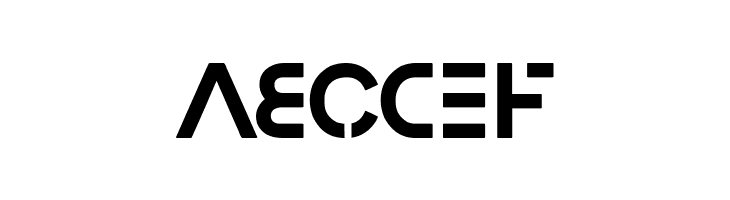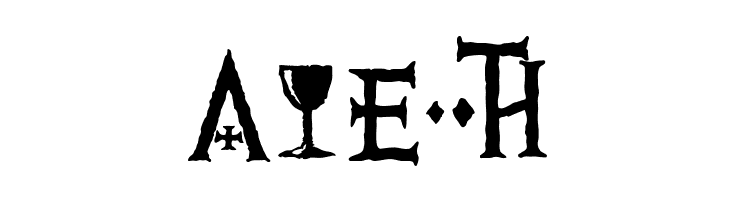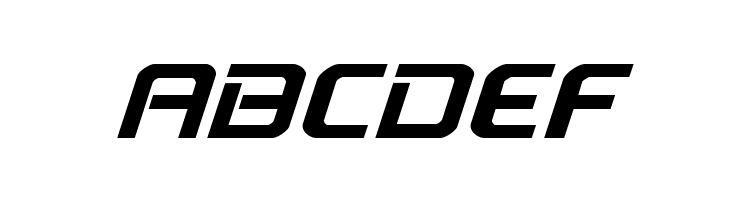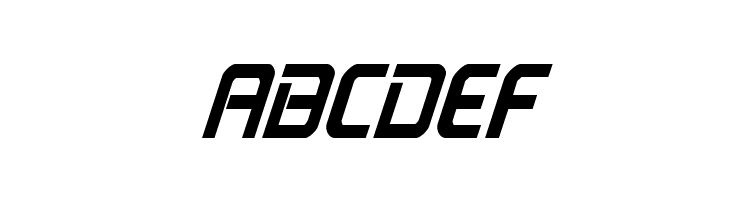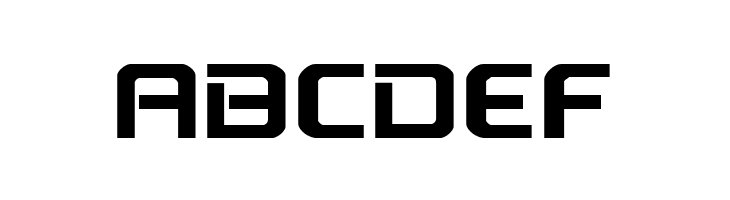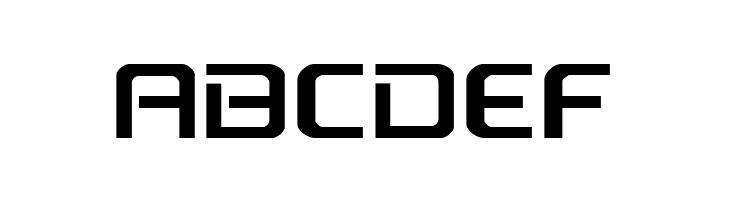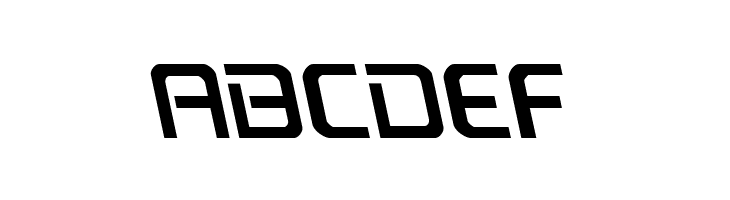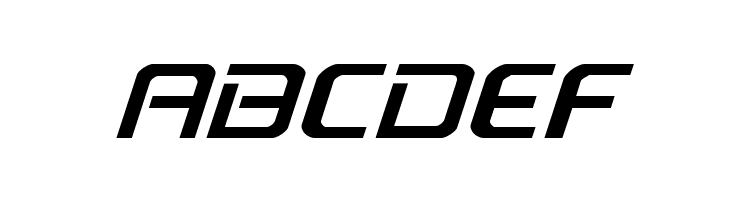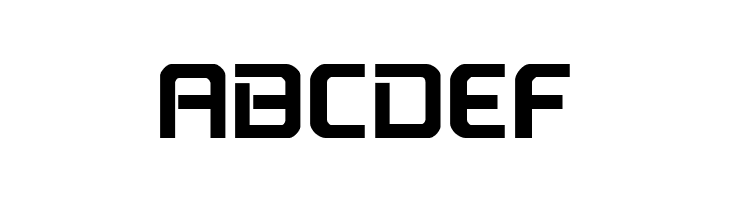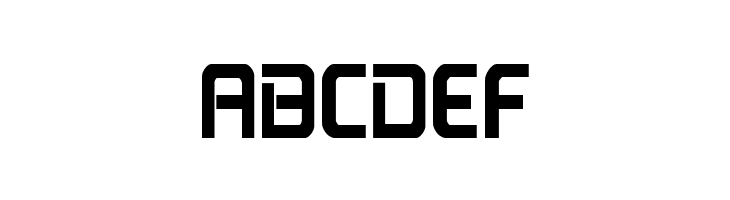
A bold, three-dimensional font with a modern, geometric style.
A bold, italicized font with outlined characters and a dynamic, energetic style.
A bold, outlined font with a strong, geometric style ideal for impactful designs.
A bold, condensed font with sharp angles and a modern, assertive style.
Bold, condensed, and italicized font with a dynamic, angular style.
A bold, expanded font with sharp, angular edges for impactful displays.
A bold, expanded, and italic font with a modern and dynamic style.
A bold, italicized font with a dynamic gradient effect and horizontal line design.
A bold, modern font with a gradient effect created by horizontal lines.
A bold, italic font with angular, dynamic characters.
A bold, angular, and futuristic font with a geometric style.
A bold, left-slanted font with a dynamic and angular style.
A bold, italic outline font with a dynamic and modern style.
A bold, outlined font with geometric, angular characters.
A bold, geometric font with a modern, condensed style.
A bold, geometric font with a futuristic and modern design.
A decorative font inspired by ancient symbols and runes, featuring bold, hand-drawn characters.
A bold, hand-drawn font with a gothic influence and dynamic strokes.
A modern font inspired by Arabic calligraphy with bold, angular characters.
A chaotic and distressed font with irregular, edgy characters.
A futuristic, italicized 3D font with bold, angular outlines.
A futuristic, geometric font with outlined, angular letterforms.
A bold, futuristic font with geometric shapes and sharp angles.
A bold, condensed font with a futuristic, geometric design.
A bold, condensed, and italic font with a futuristic and dynamic style.
A bold, expanded font with a futuristic and geometric design.
A bold, expanded, and italic futuristic font with sleek, angular design.
A bold, italicized font with a futuristic and dynamic design.
A futuristic, geometric, and condensed font with bold lines and sharp angles.
A futuristic, condensed italic font with angular, geometric characters.
A futuristic, geometric font with bold, angular lines and cut-out sections.
A futuristic, italicized font with bold, angular characters and tight spacing.
Futuristic, italicized font with bold, angular strokes and a sleek, modern design.
A futuristic, angular font with bold geometric characters.